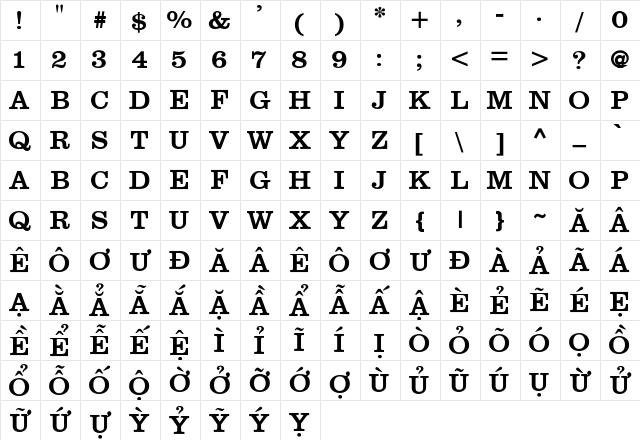
.VnClarendonH Normal
Design Context for .VnClarendonH
.VnClarendonH features prominent, blocky serifs that give it a confident, grounded presence - equally at home in editorial settings and bold branding work.